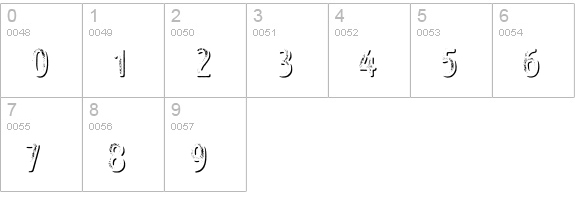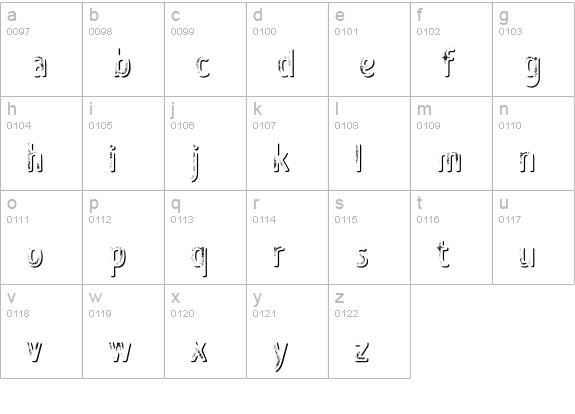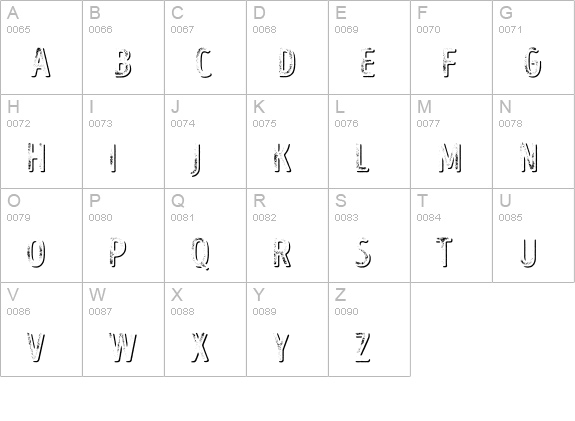
Intro Head B G Shade Font Details
Intro Head B G Shade font is a captivating display typeface that exudes a sense of modernity and sophistication. With its bold and striking appearance, this font is perfect for making a statement and grabbing attention. The unique shading effect adds depth and dimension to each character, creating a visually stunning look. Whether you are designing a poster, logo, or any other creative project, Intro Head B G Shade font will add a touch of elegance and flair. Best of all, this font is available for free download at FontsMarket.com. So, you can easily access this impressive typeface and incorporate it into your designs without any cost. Don't miss out on the opportunity to enhance your projects with the stylish and eye-catching Intro Head B G Shade font. Download it today and let your creativity shine!